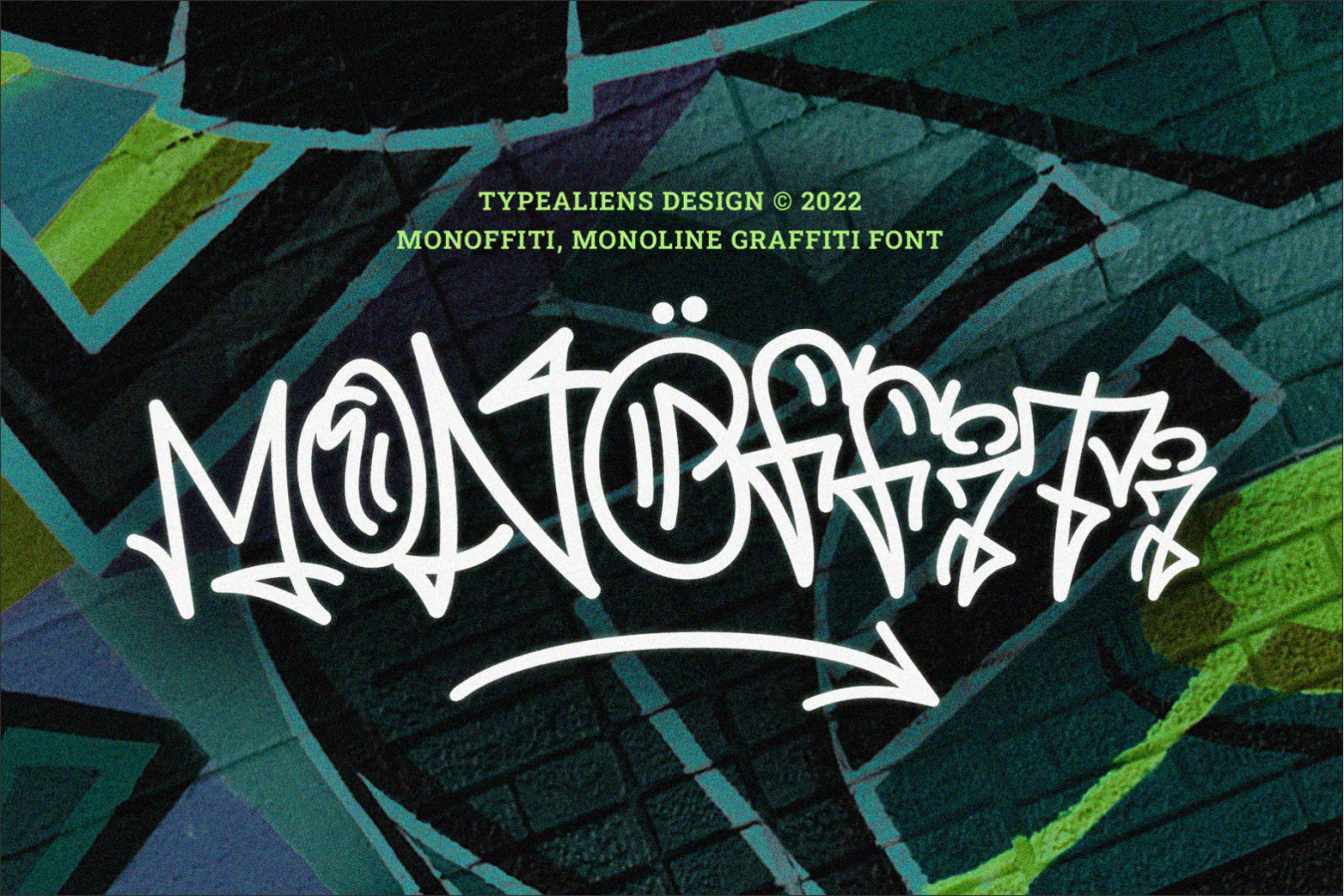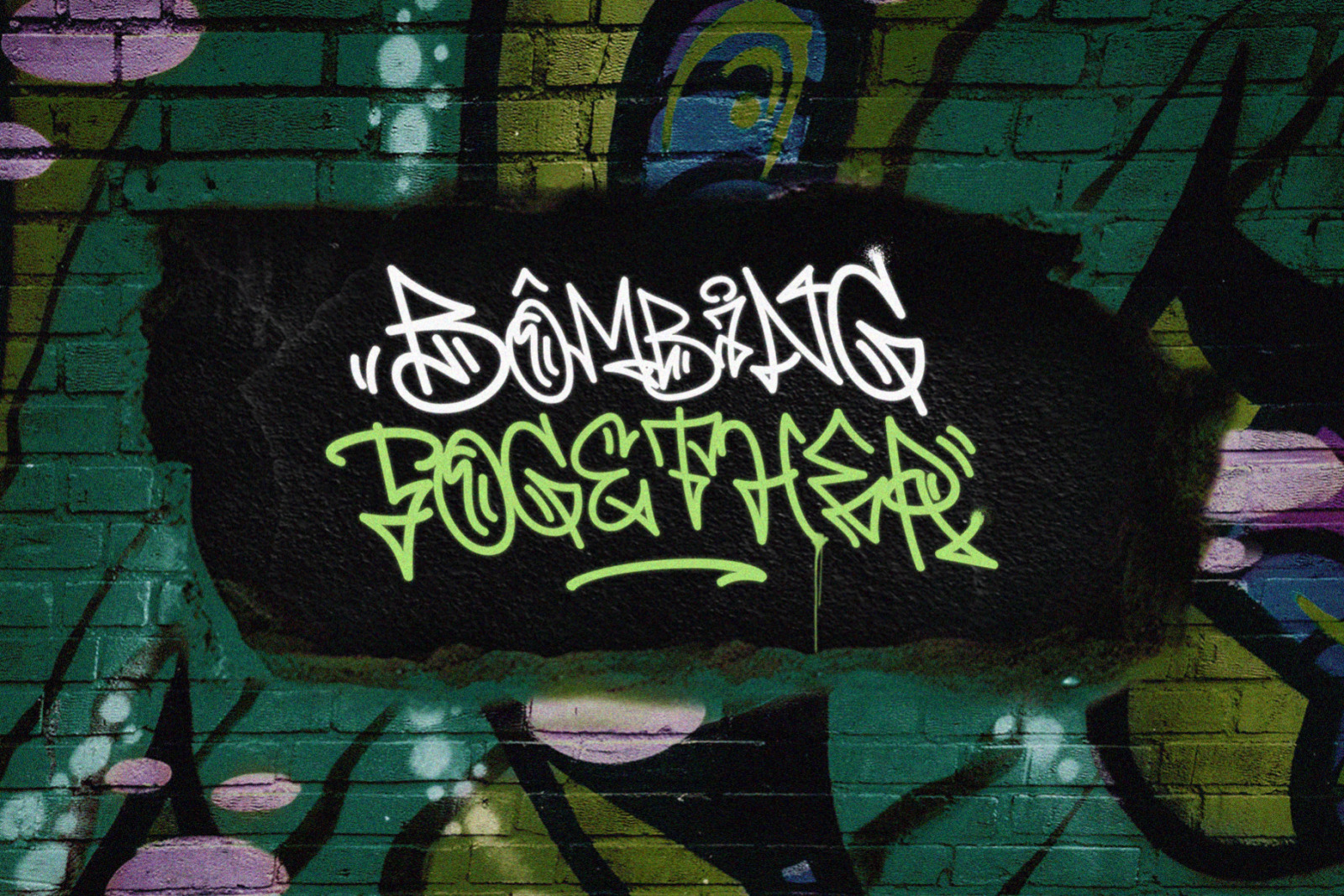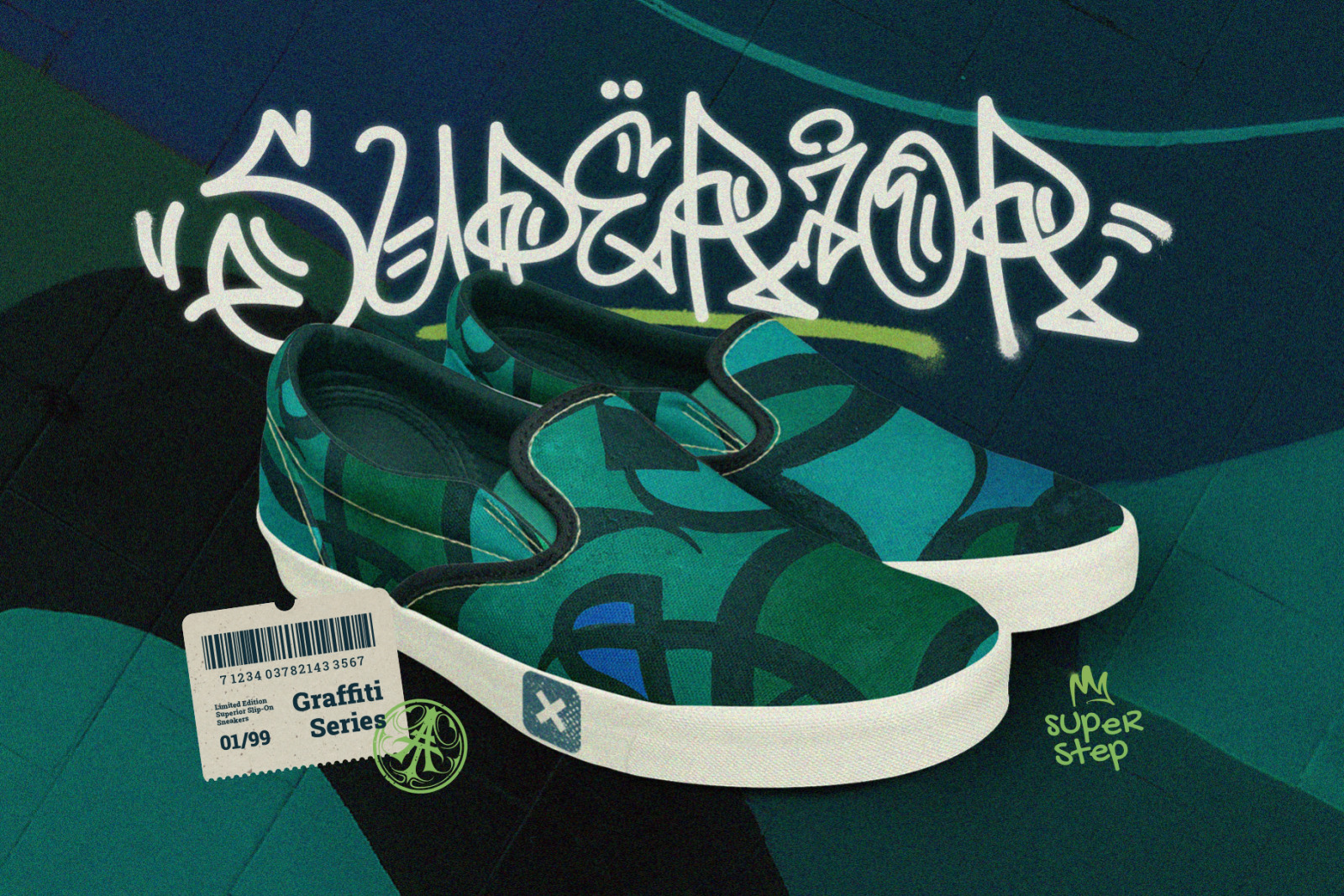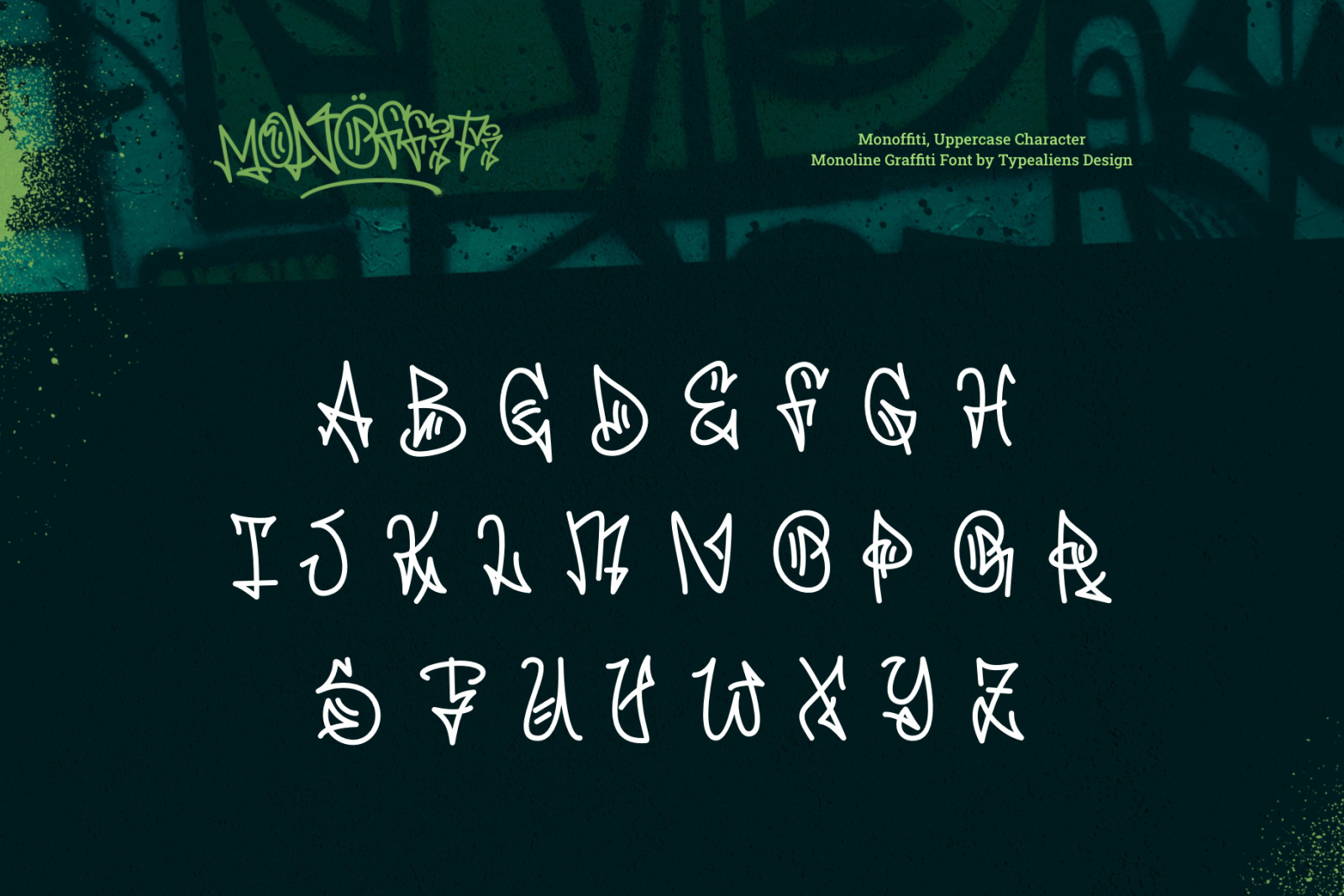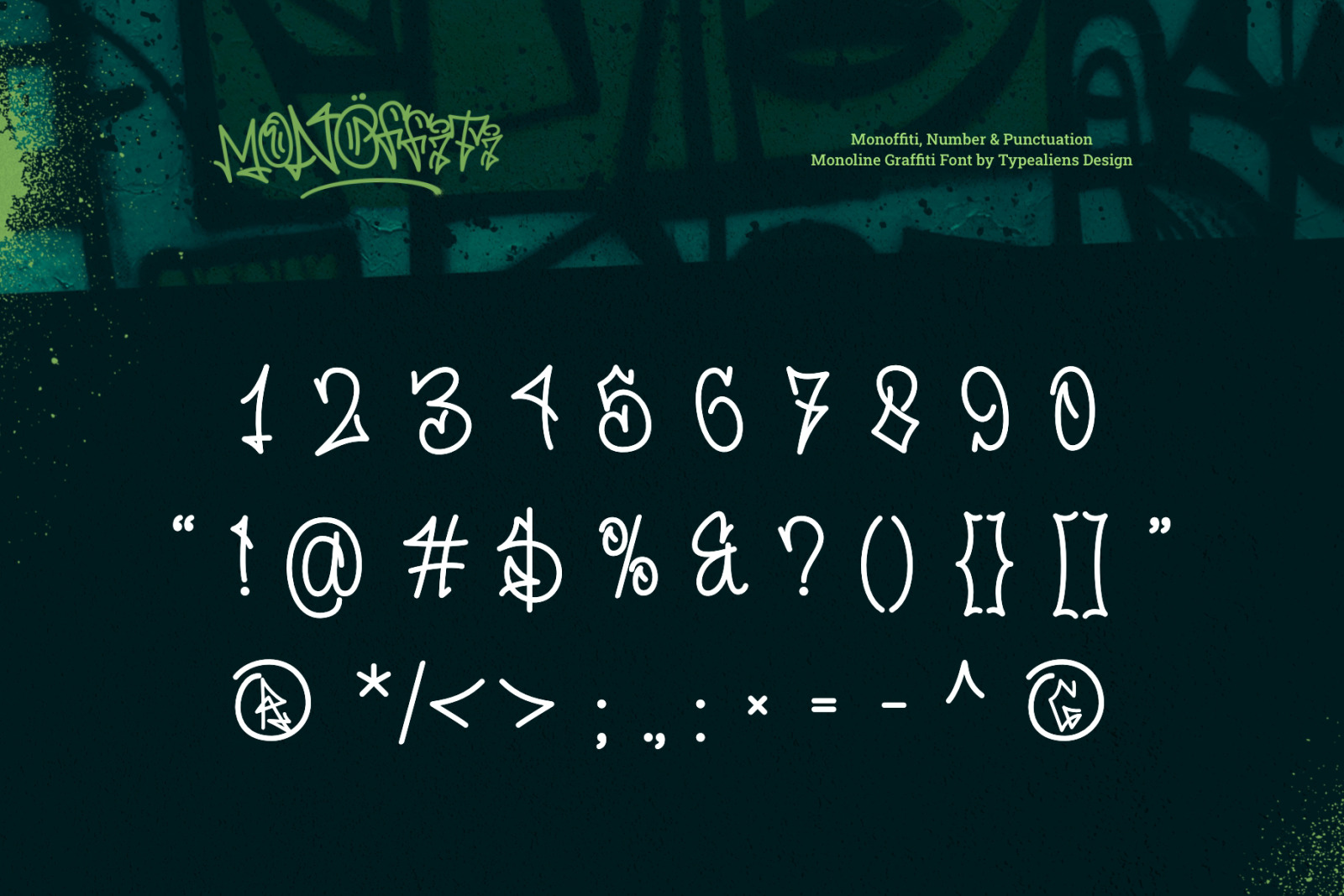
Monoffiti Font
MONOFFITI is a graffiti font with monoline style strokes. A suitable font to support urban art or street art designs. In addition, it can be used for fashion designs related to works of art or art artists who make merchandise designs. The basic font is graffiti calligraphy with monoline strokes so as to produce a unique font with a modern feel.